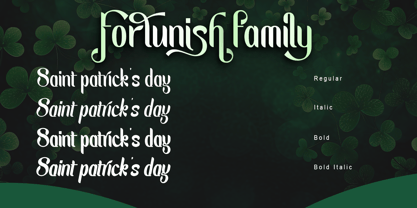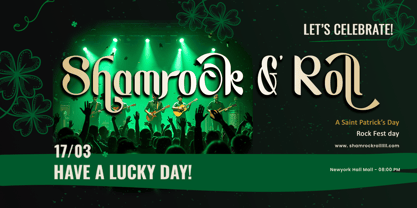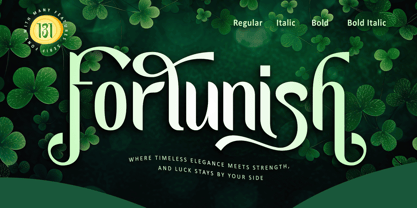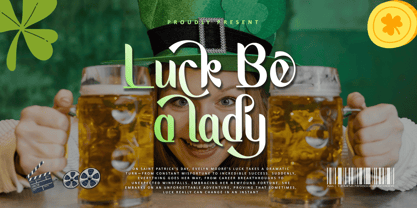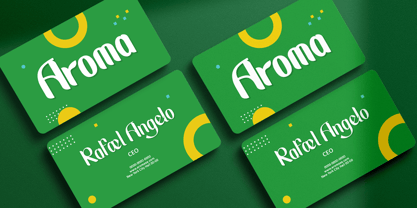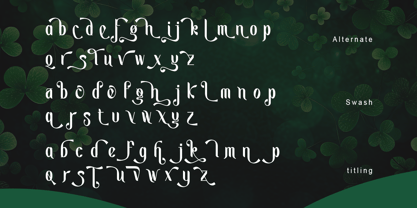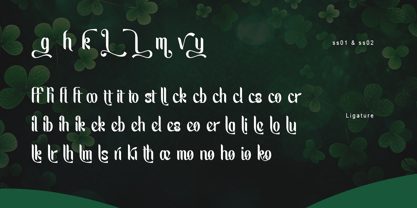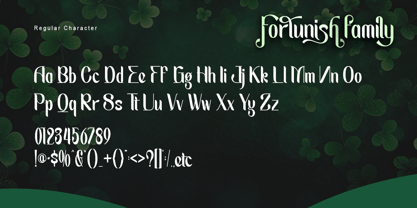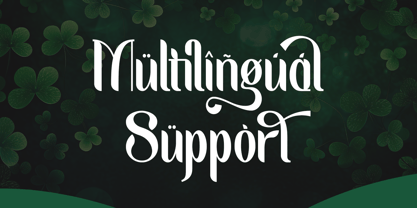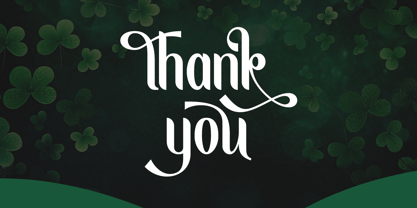
Fortunish
The Fortunish Font Family was designed by Thomas Aradea and published by Letterara. Fortunish contains 4 styles and family package options. More about this family
Introducing Fortunish, a refined serif font family that embodies sophistication and timeless appeal. Designed with precision, Fortunish offers four versatile styles—Regular, Italic, Bold, and Bold Italic—ensuring flexibility for any design project. Its elegant letterforms exude confidence and charm, making it the perfect choice for upscale branding, editorial designs, luxurious packaging, and stylish typography. Featuring PUA encoding, Fortunish provides seamless access to a wide array of unique glyphs, enhancing creative possibilities. Elevate your designs with Fortunish, a font that blends classic beauty with modern versatility.